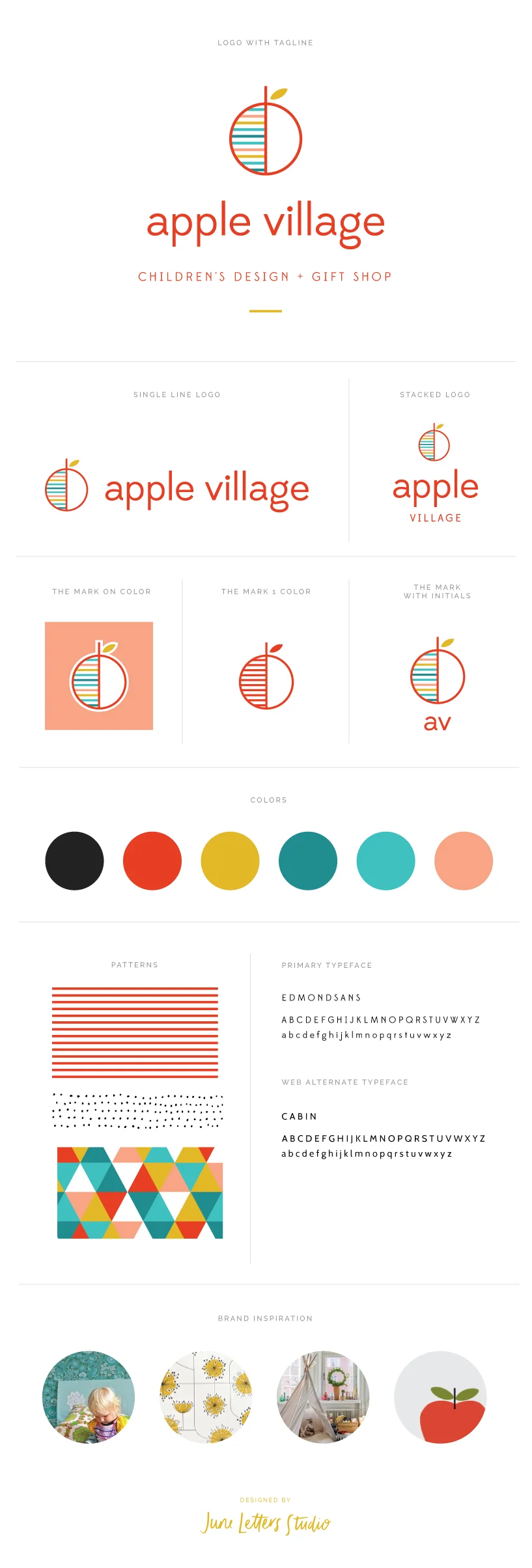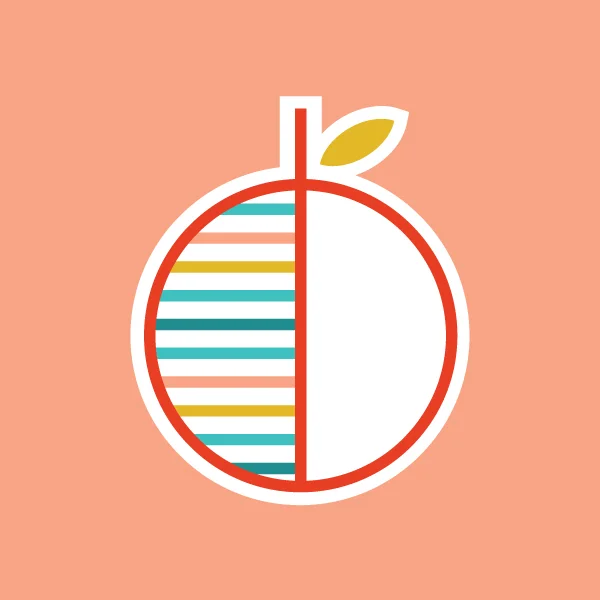
Apple Village
Very excited to share some new work! I have had so much fun working on the branding for a new children's boutique called Apple Village opening up in Montclair Village, New Jersey. The owner, Alex Pavel, wants to create a curated collection of design-centric furnishings and gifts for modern cool kids (and their parents)! So for the logo we went with this modern but also whimsical and colorful option. The apple mark is very simple but also full of energy and fun. This is my first brand for children's products - and I really hope I get to do more! There is something very freeing about working on a children's brand, I can't quite describe it!